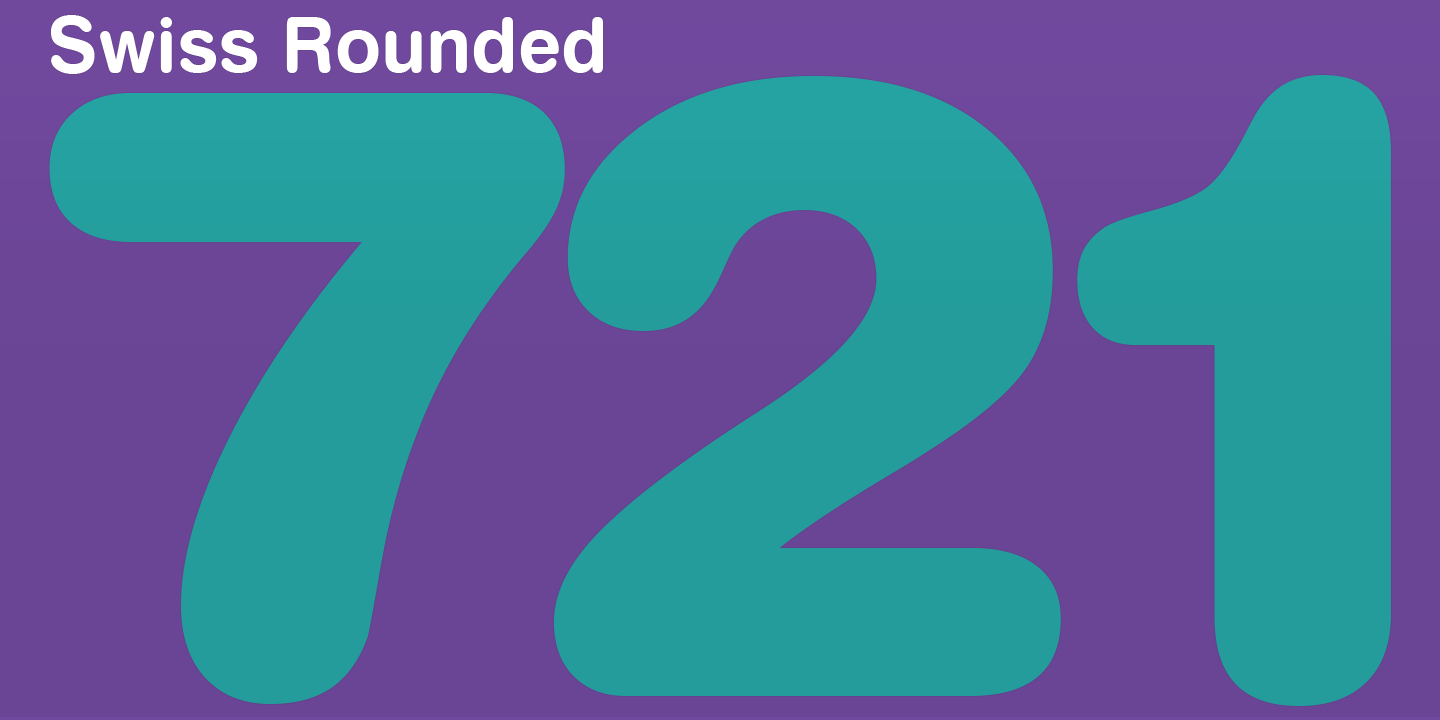
Please note, you must purchase this font for commercial use. You can download Swiss 721 Font Free Download for testing purposes and explore its clean, modern design. Swiss 721 Font is perfect for branding, editorial content, web design, and any project that requires a classic, versatile sans-serif typeface.
With its geometric shapes and balanced proportions, Swiss 721 Font offers a timeless and professional look. It’s ideal for creating logos, headlines, body text, and any design that demands clarity, legibility, and a modern yet traditional feel.
Swiss 721 Font Free Download supports multilingual characters, making it suitable for global projects. Its legible and straightforward design ensures readability across both print and digital formats, making it a great choice for various creative applications.